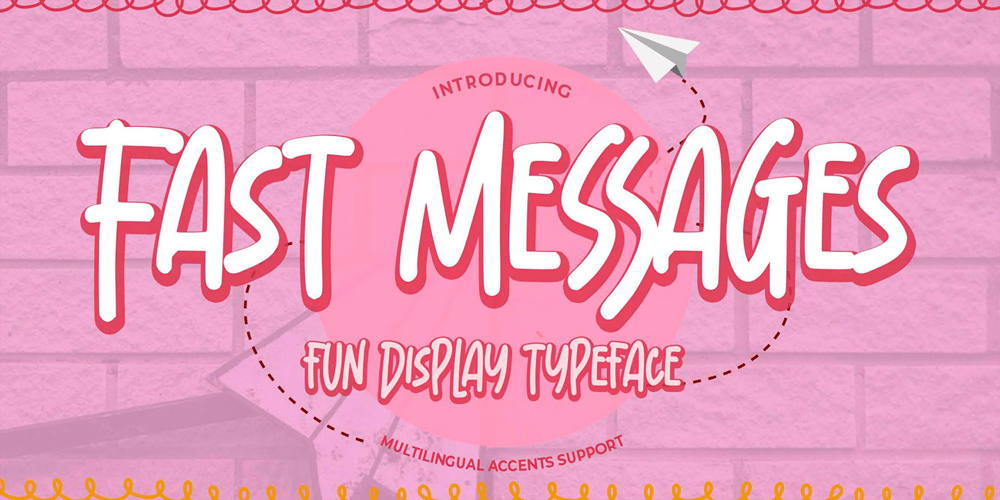
Fast Messages
Fast Messages font
Fast Messages Font Family was designed by Abdul Malik Wisnu, Anang Fibriyanto and published by Gassstype. Fast Messages contains 1 styles and family package options. Hello Everyone, introduce our new product Font Fast Messages is a Fun Display Typeface .This is a Textured Natural Style and classy style with a clear style and dramatic movement.This font Fast Messages is great for your next creative project such as logos, printed quotes, invitations, cards, product packaging, headers, Logotype, Letterhead, Poster, Design this font is great for your creative projects such as watermark on photography, and perfect for logos & branding, invitation,advertisements,product designs, stationery, wedding designs,label ,product packaging, special events or anything that need handwritting taste.That is has charming, authentic and relaxed characteristic more natural look to your text You can activate 14 Alternate and 15 Ligatures OpenType panel.